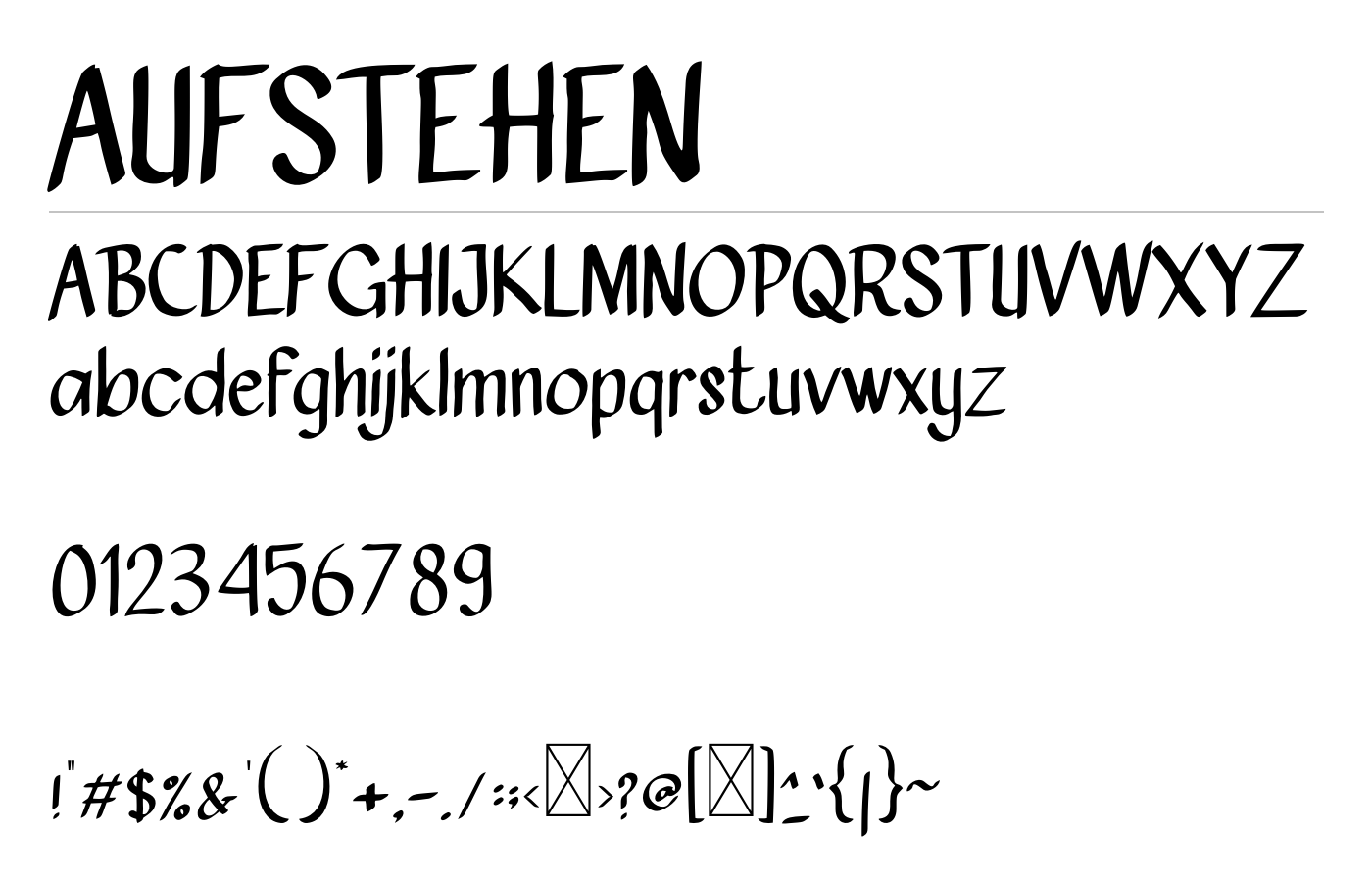
AUFSTEHEN is a distinctive serif font with a casual, hand-drawn feel, featuring irregular strokes and subtle variations that add a lively, organic touch. Its moderate contrast and lightly condensed letterforms make it both expressive and legible, suitable for creative headlines, posters, or branding that seeks a friendly yet artisanal vibe. This font works well when you want to convey approachability and uniqueness with a hint of rustic charm.
AUFSTEHEN Font